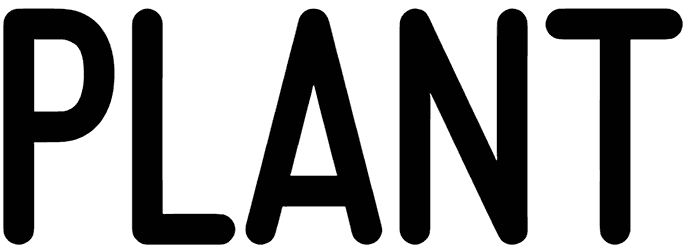
Plant Font
Plant is a sans serif font that has the real potential to bring all of your creative ideas to a higher level and makes them stand out alongside all of their counterparts.
Since this all-caps font comes with uniformly straight characters, it can be included in posters, business cards, banner ads, logos, and brochures. Don’t overlook this golden point that this font can share a sense of modernity, professionalism, drama, and dynamic with the audience.